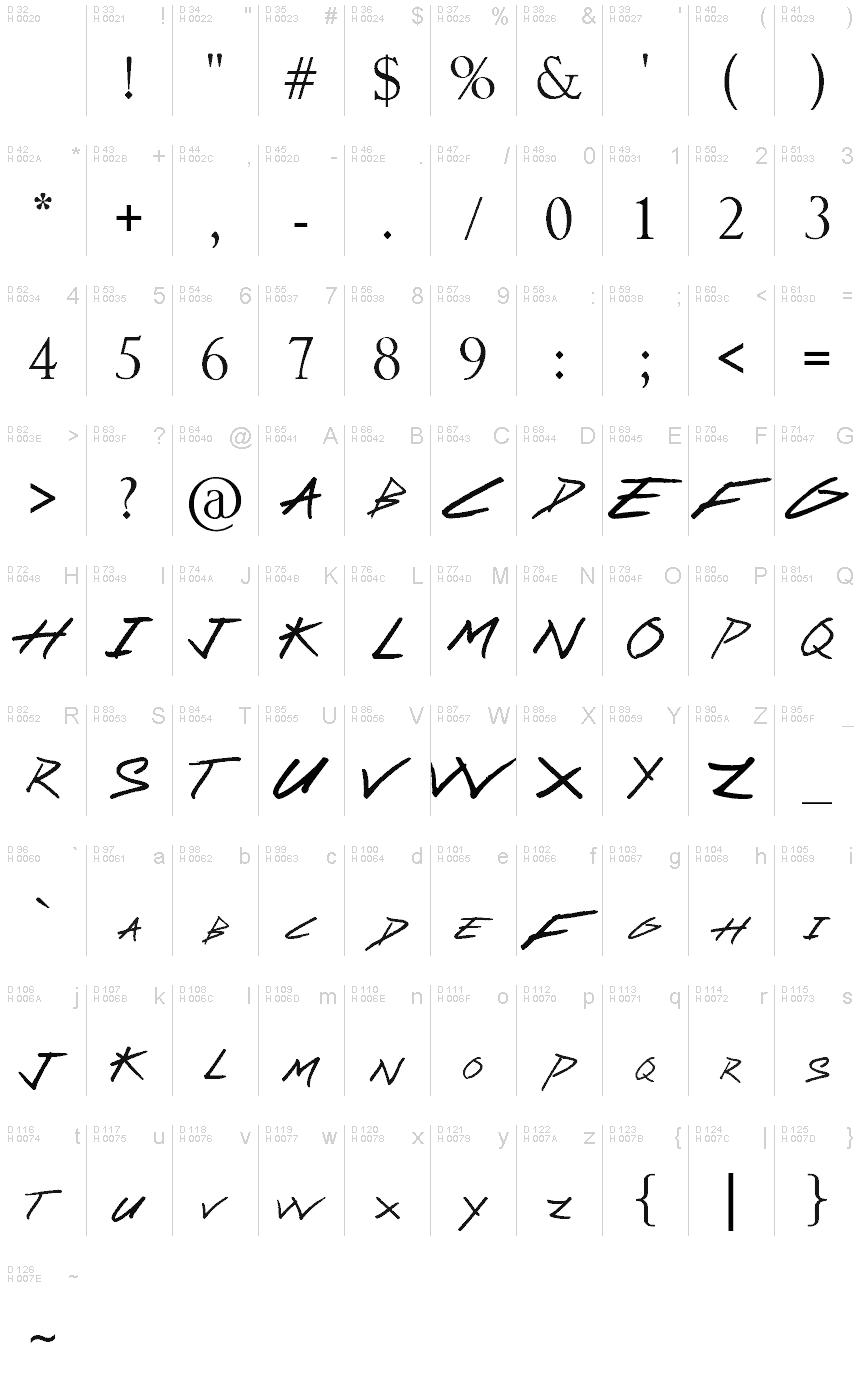
Sassy Stark
Sassy Stark emerges as a distinctive handwritten font crafted by TattooWoo.com, embodying a playful yet elegant aesthetic. With its semi-light weight and semi-expanded width, it exudes a casual charm that is versatile enough for various creative endeavors. The fluidity of Sassy Stark’s characters suggests a personal touch, making it an excellent choice for projects that require a sense of intimacy and flair.
The artistic strokes mimic the spontaneity of ink on paper, giving this font a dynamic presence that can elevate branding materials, invitations, and editorial content with its unique style. Sassy Stark's balance between readability and stylistic expression positions it as an ideal candidate for designers seeking to inject personality into their work without sacrificing functionality.